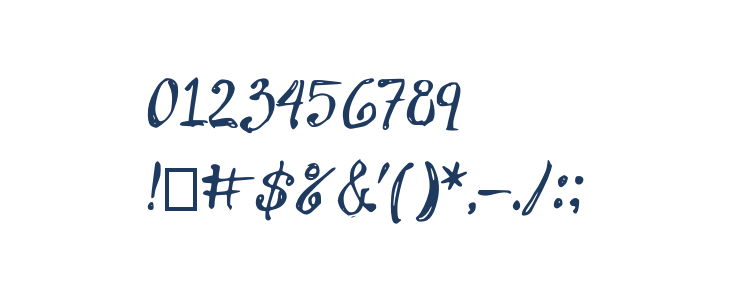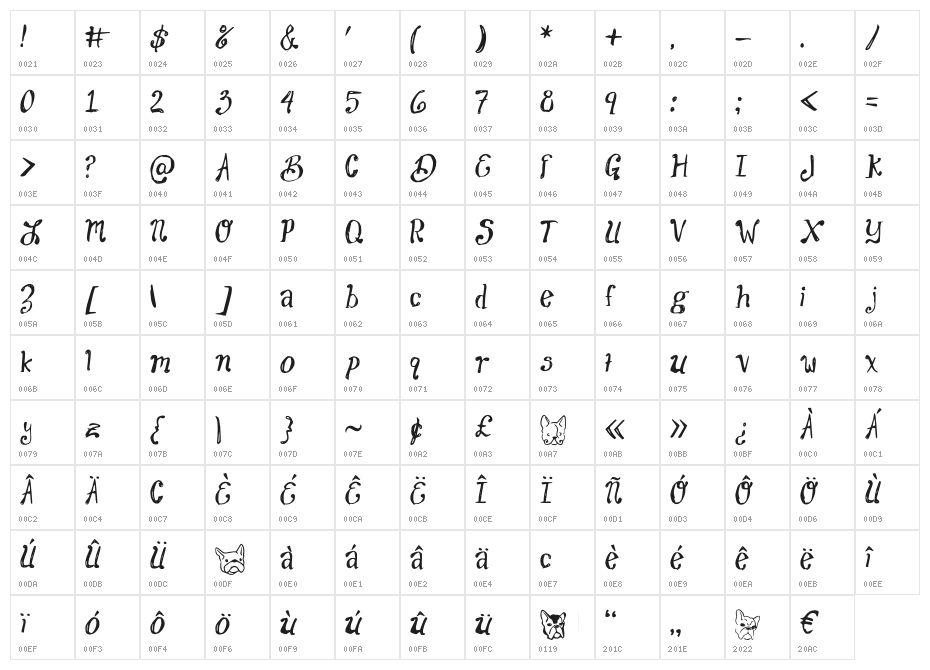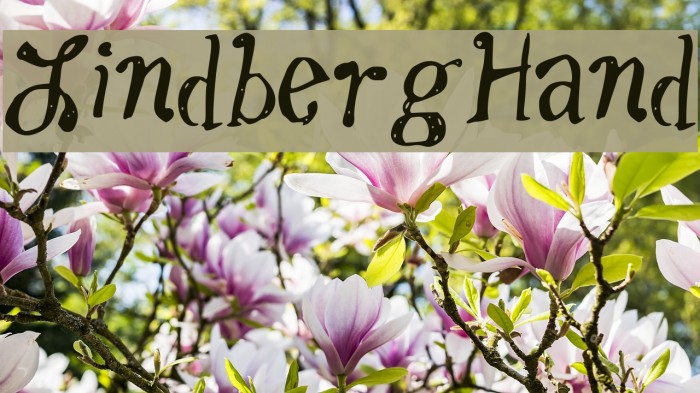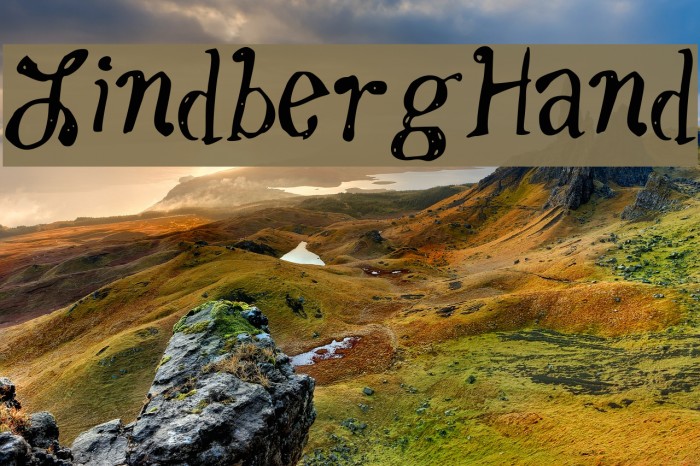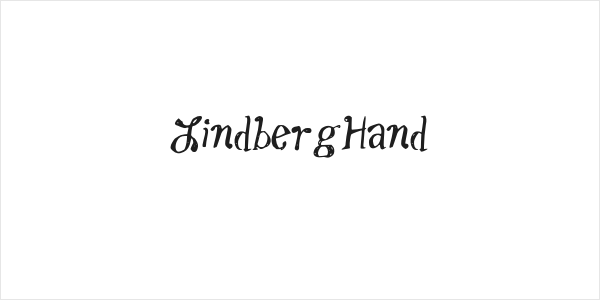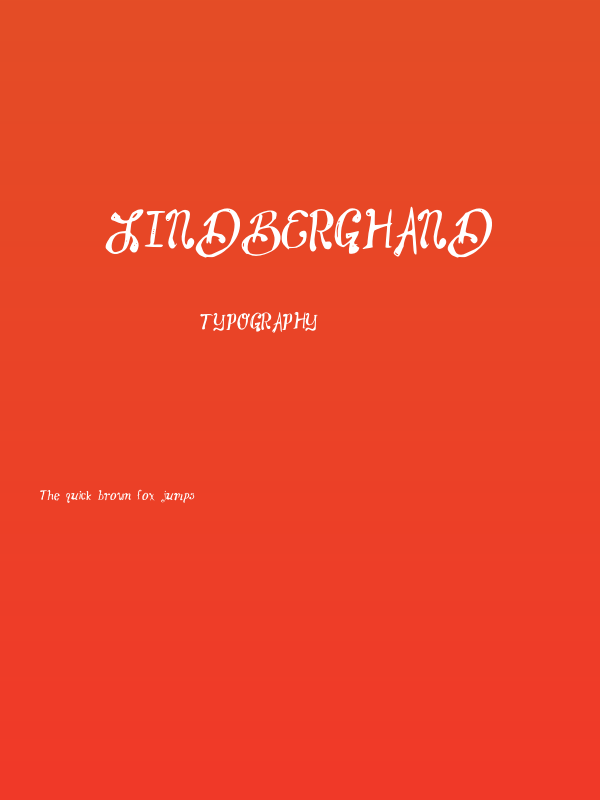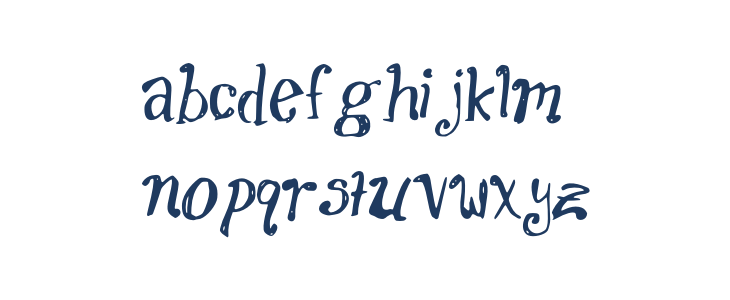
LindbergHand Font
LindbergHand Description
This font exhibits a unique, hand-drawn style with a playful and artistic flair. The characters are characterized by their irregular strokes and whimsical curves, giving them a lively and dynamic appearance. The uppercase letters are bold and expressive, while the lowercase letters maintain a consistent flow, enhancing the font's overall charm. Numbers and special characters are crafted with the same attention to detail, ensuring a cohesive look across all elements. The font's distinctive style makes it suitable for creative projects that require a touch of personality and originality.
| Proposed Projects | Ideal for greeting cards, invitations, posters, and branding that seeks a personal touch. |